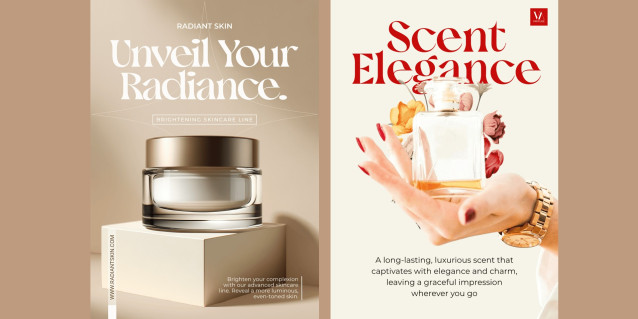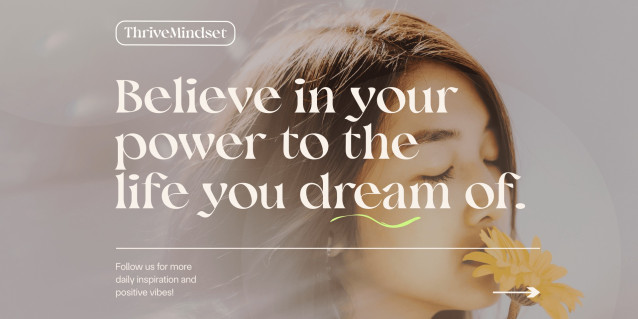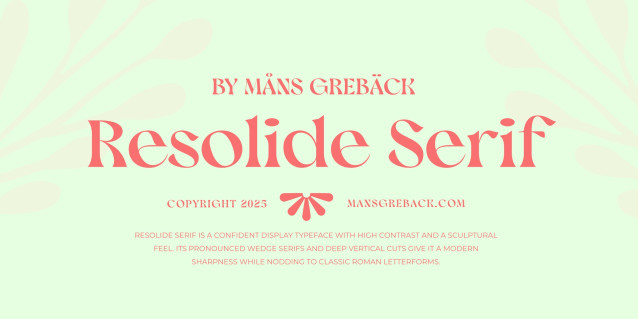
Resolide Serif Font
Resolide Serif Font is a confident display typeface with high contrast and a sculptural feel. Its pronounced wedge serifs and deep vertical cuts give it a modern sharpness while nodding to classic Roman letterforms. The rhythm of its forms dances between shadow and light, creating a dramatic interplay especially in large sizes.
The lowercase is designed with elegance and precision, complementing the bold geometry of the capitals. Whether used in branding or on a book cover, Resolide Serif stands with poise and distinction.
The font is built with advanced OpenType functionality and guaranteed top-notch quality, containing stylistic and contextual alternates, ligatures and more automatic and manual features; all to give you full control and customizability.
It has extensive lingual support, covering all Latin-based languages, from North Europa to South Africa, from America to South-East Asia. It contains all characters and symbols you’ll ever need, including all punctuation and numbers.
Designed and created by Mans Greback, a type designer known for his craftsmanship in developing professional and creative fonts for both expressive and formal typography.